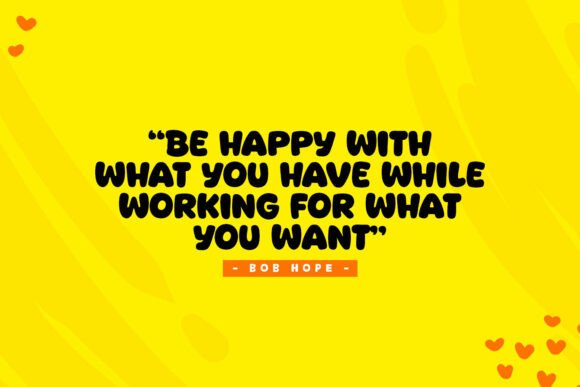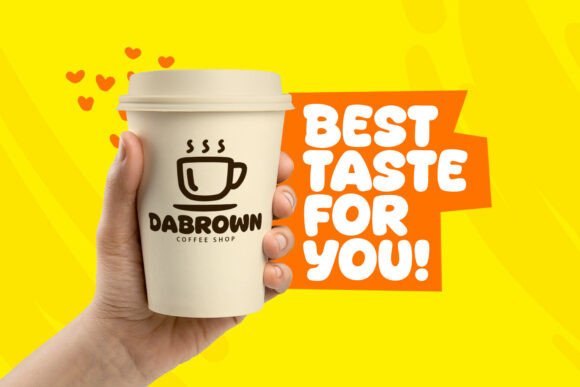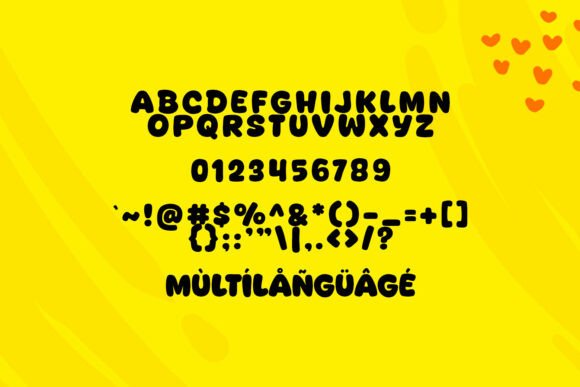
The Daily Bold Font: A Modern Design Game-Changer
Have you ever been in the middle of a design project, and suddenly, you just can’t seem to find the right font? I recall a particularly frustrating experience while working on a client’s poster design. The project required a font that was modern, yet playful; bold, yet elegant. After hours of scouring the internet, I stumbled upon the Daily Bold font. It was love at first sight! 💕
An Honest Review of Daily Bold
So, what makes Daily Bold so special? Let’s dive into the good stuff and a few quirks I’ve discovered.
- ✨ Modern and Cute: Daily Bold is a perfect blend of modern sleekness and adorable playfulness, making it versatile for various design projects.
- ✅ Ease of Use: This font is incredibly easy to read, even at smaller sizes, which is a huge plus for body text or when you’re working on projects that require a lot of content.
- 💡 OpenType Features: Daily Bold comes with a range of OpenType features, including stylistic alternates and glyphs, which allow for a high degree of customization.
- 🎨 Design Versatility: Whether you’re working on posters, logos, magazines, book covers, or banners, Daily Bold fits right in and makes your designs stand out.
While Daily Bold is an amazing font, there are a couple of things to keep in mind:
- 🤔 Limited Serif Options: Daily Bold is a sans-serif font, which might not be ideal for projects requiring a more traditional or formal look.
- ⚠️ Overuse: Given its bold nature, using Daily Bold excessively in a single project might make it overwhelming. Balance is key.
Exploring Alternatives: 4 Fonts Similar to Daily Bold
While Daily Bold is fantastic, it’s always good to have alternatives. Here are a few fonts with a similar vibe:
- Mont: A sleek and modern sans-serif font, great for digital and print projects. It’s a bit more reserved than Daily Bold but offers excellent readability.
- Raleway: This font has a more elegant feel with a slight geometric edge. It’s perfect for headings and titles where you want to add a touch of sophistication.
- Poppins: A versatile font with a geometric look. It’s great for digital interfaces and print materials, offering a range of weights and styles.
- Inter: A contemporary sans-serif designed specifically for computer screens. It’s highly legible and works well for web and app design.
The Story Behind Daily Bold: A Designer’s Inspiration
The Daily Bold font was created with the modern designer in mind. The designer aimed to craft a font that was not only visually appealing but also highly functional across various media. Inspired by contemporary design trends and a passion for minimalist aesthetics, Daily Bold was born out of a desire to bridge the gap between playful and professional.
In conclusion, Daily Bold is a versatile and modern font that can elevate your designs. With its ease of use, extensive features, and wide applicability, it’s an excellent addition to any designer’s toolkit. Give it a try and see how it transforms your projects! 🌟